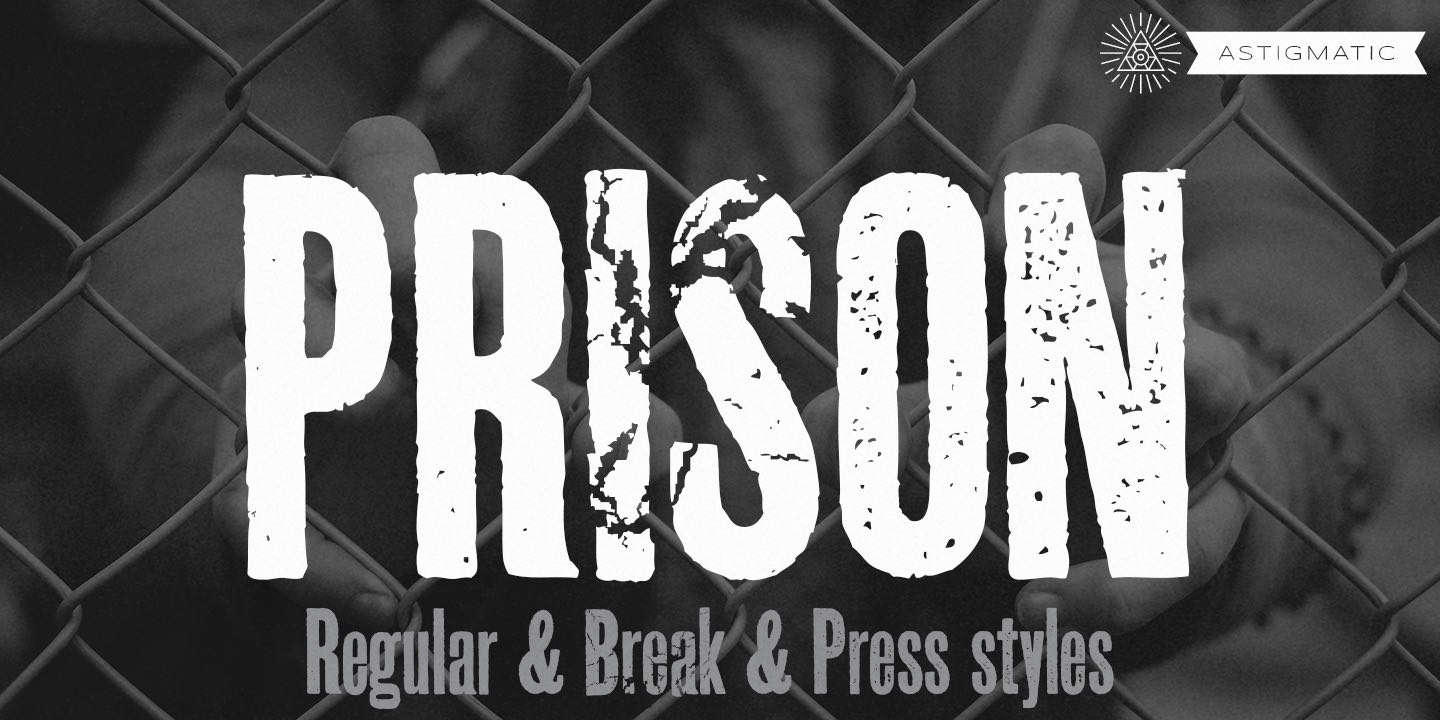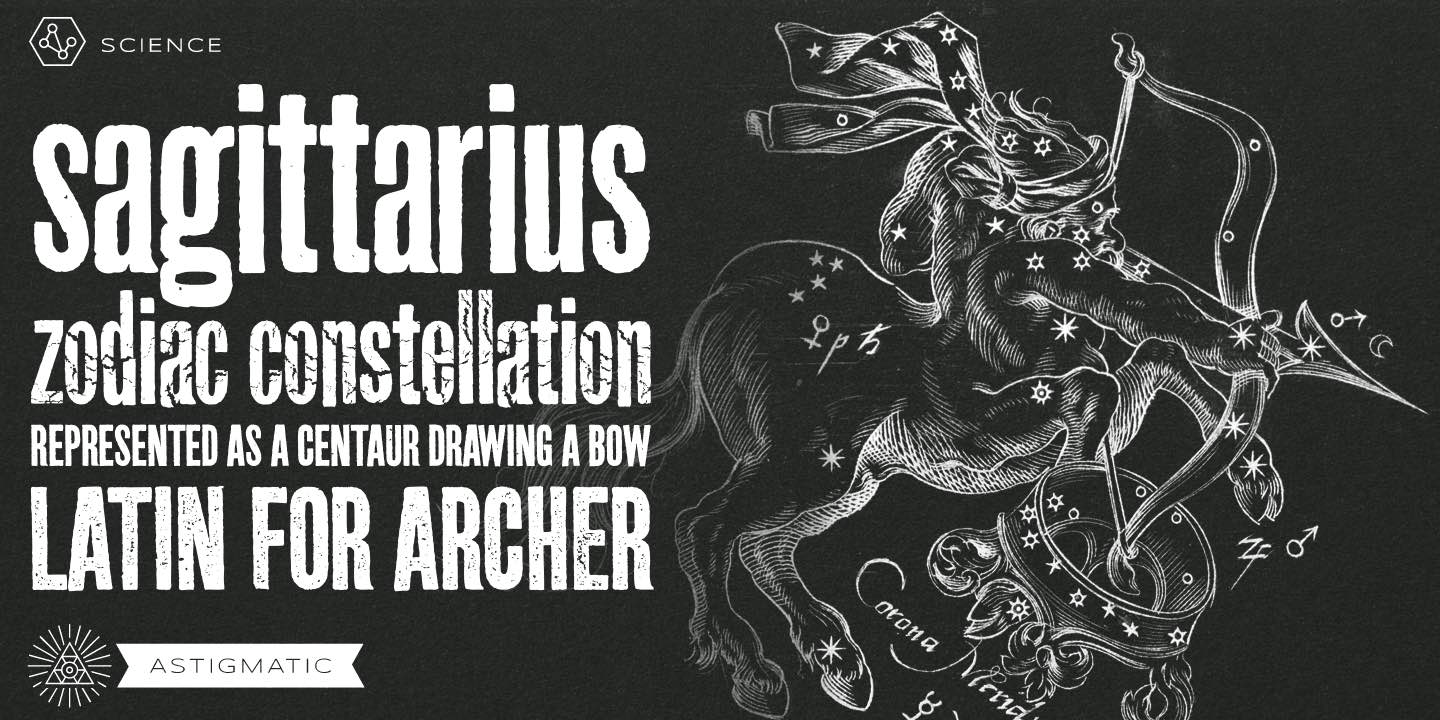
Prison Pro
Font Family by Astigmatic One Eye
An antique letterpress typeface digitally recreated with various grunge variations for a versatile font family.
The new OpenType version includes: Proportional Figures (0-9) (default set), Tabular Figures (0-9), Superiors (Superscript) (0-9), Inferiors (Scientific Inferiors) (0-9), Contextual Alternates (Faux Unicase), Stylistic Alternates (StyleSet 01) (True Unicase), Fraction (unlimited), Ordinals (st, nd, rd, th).